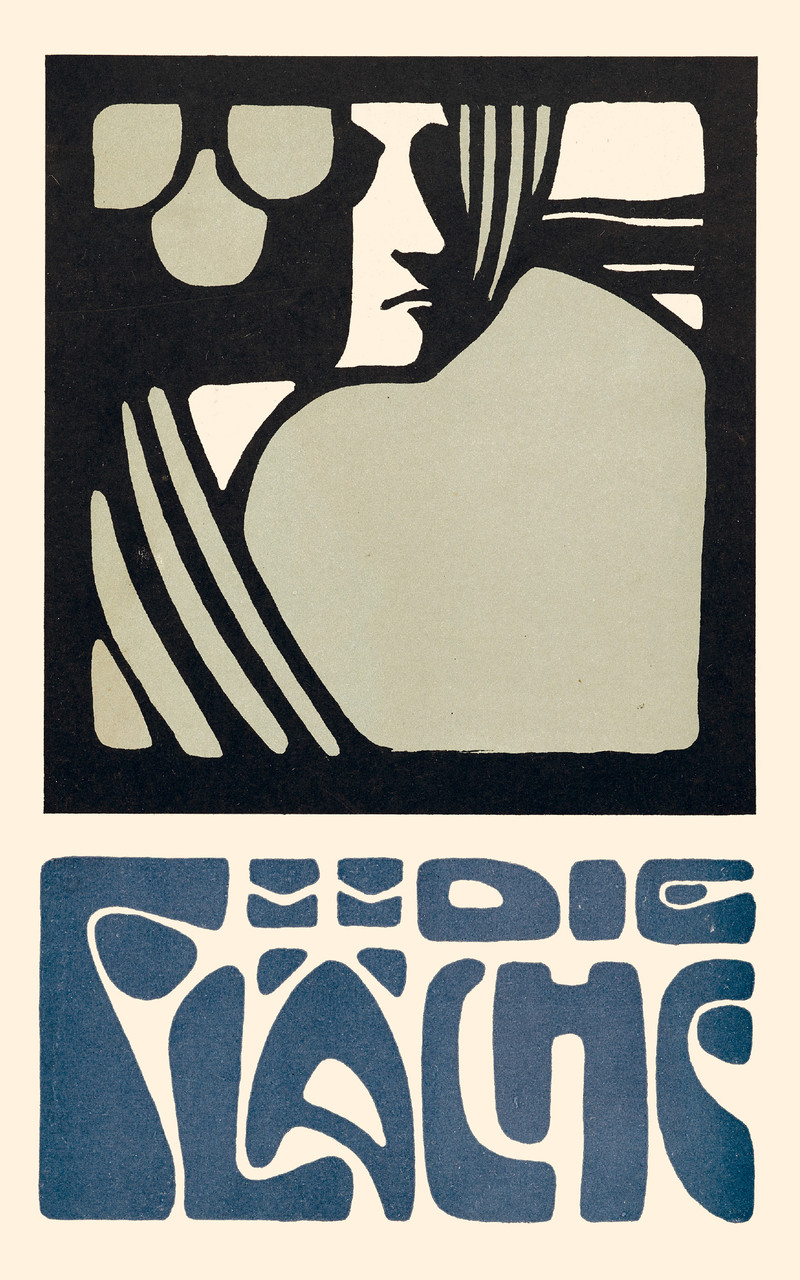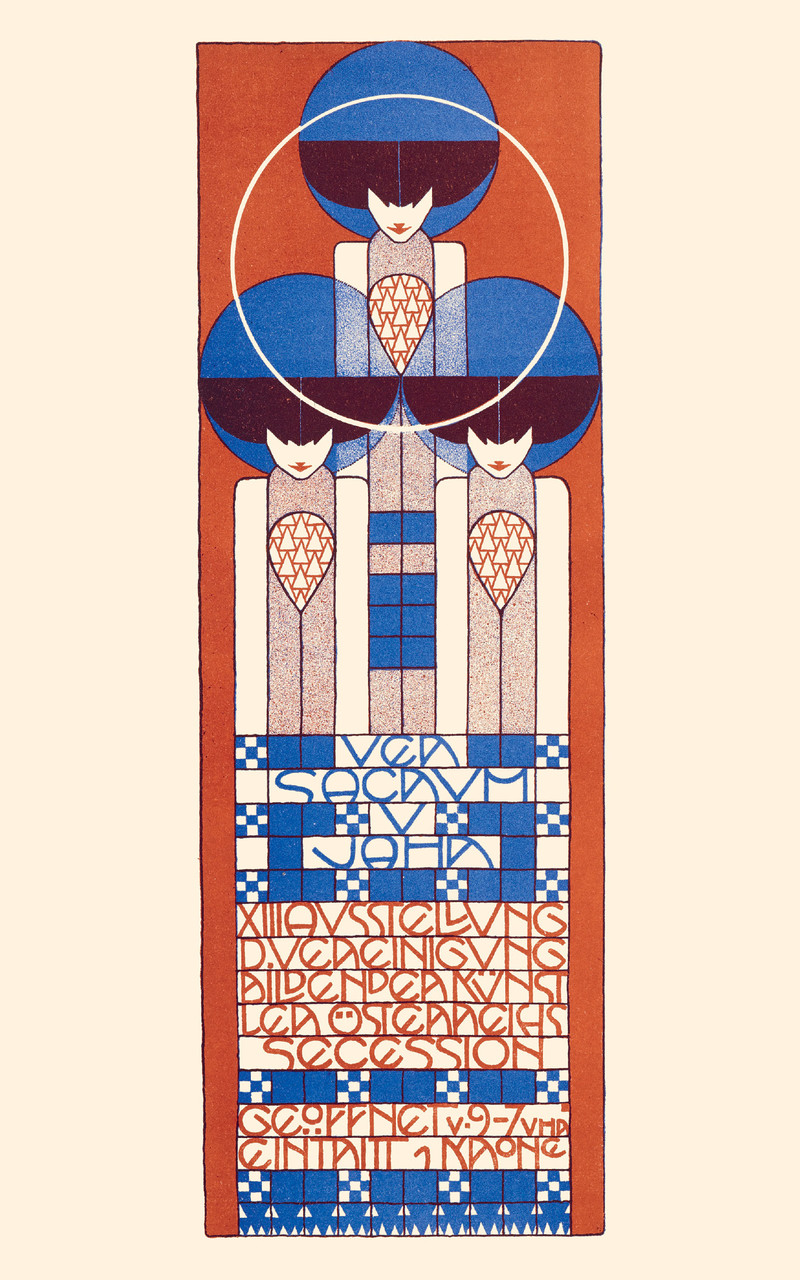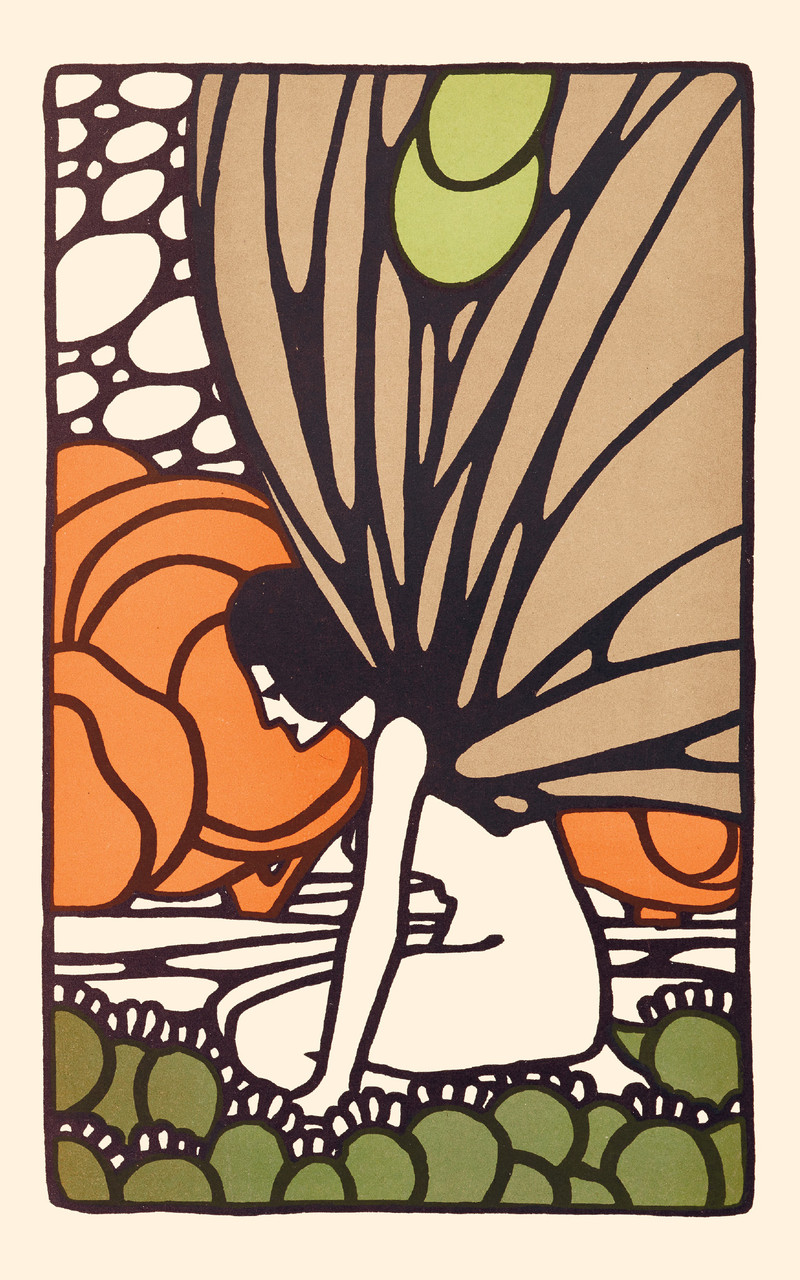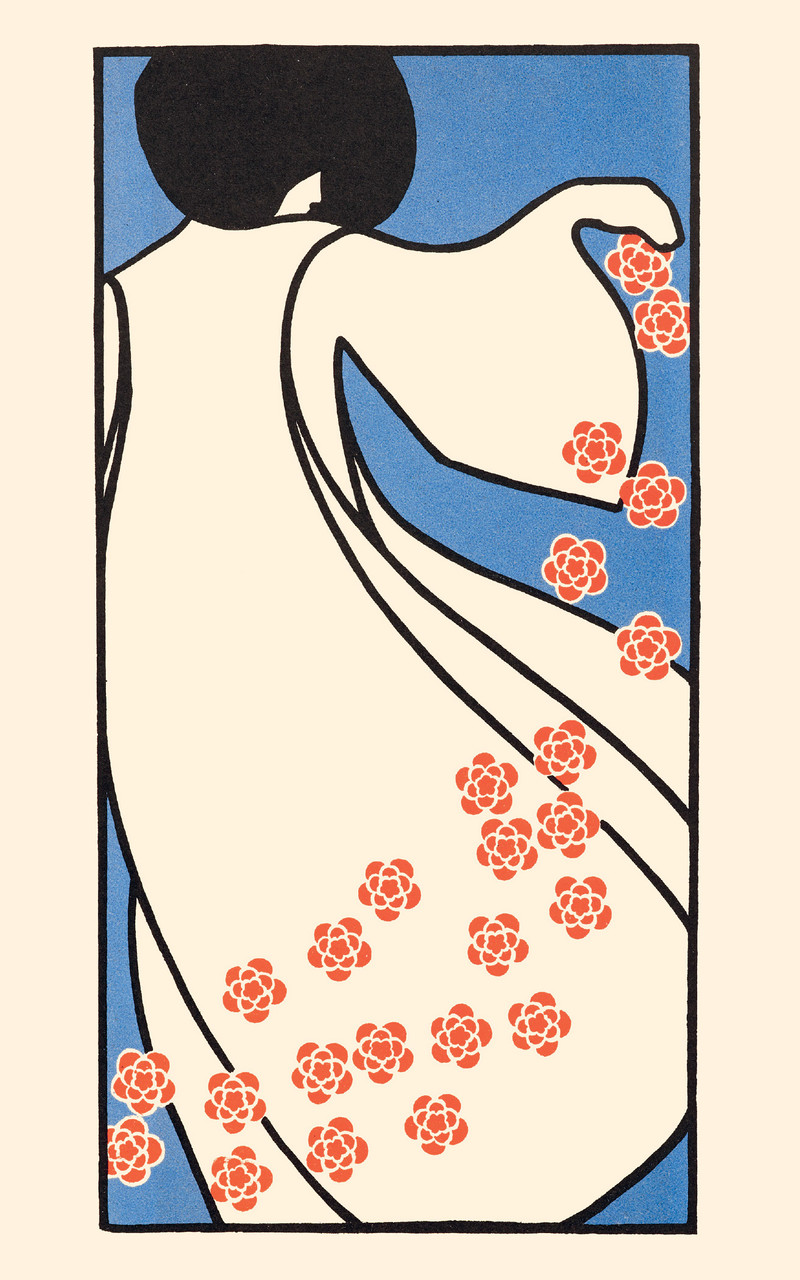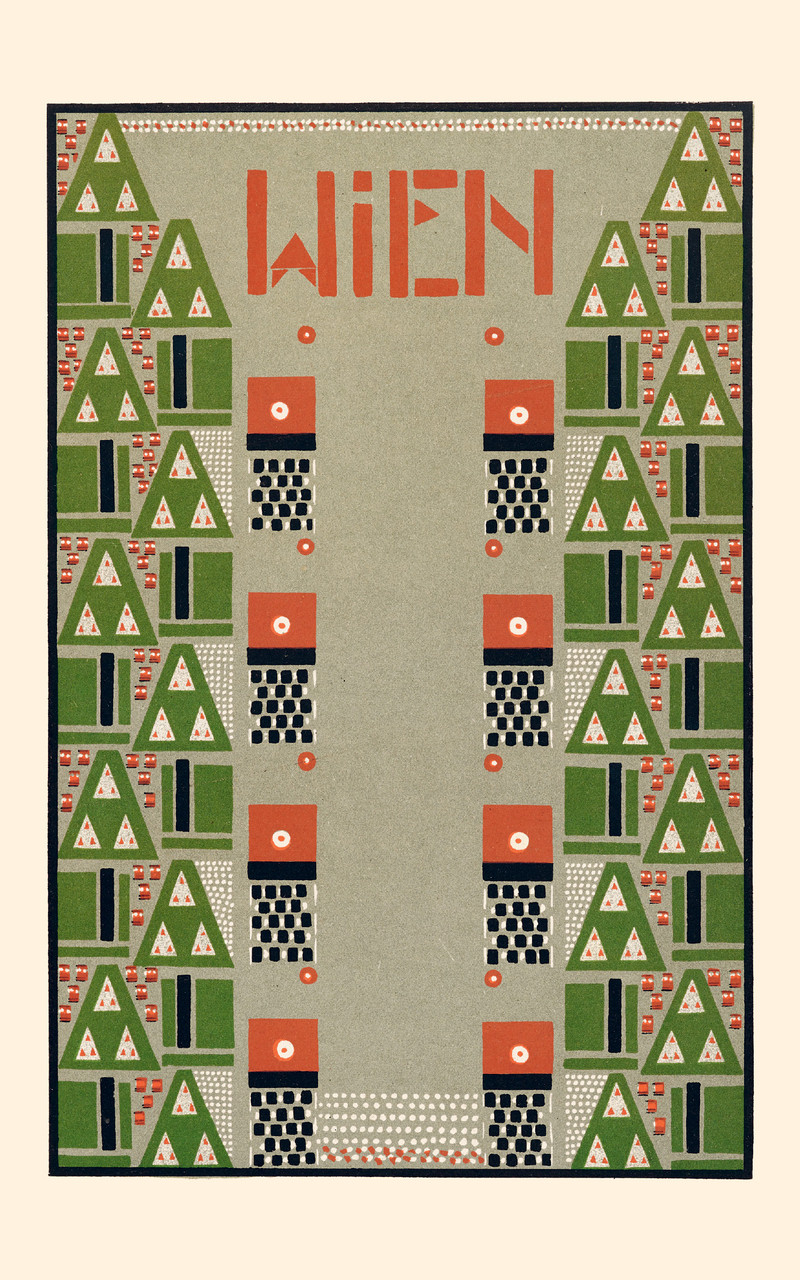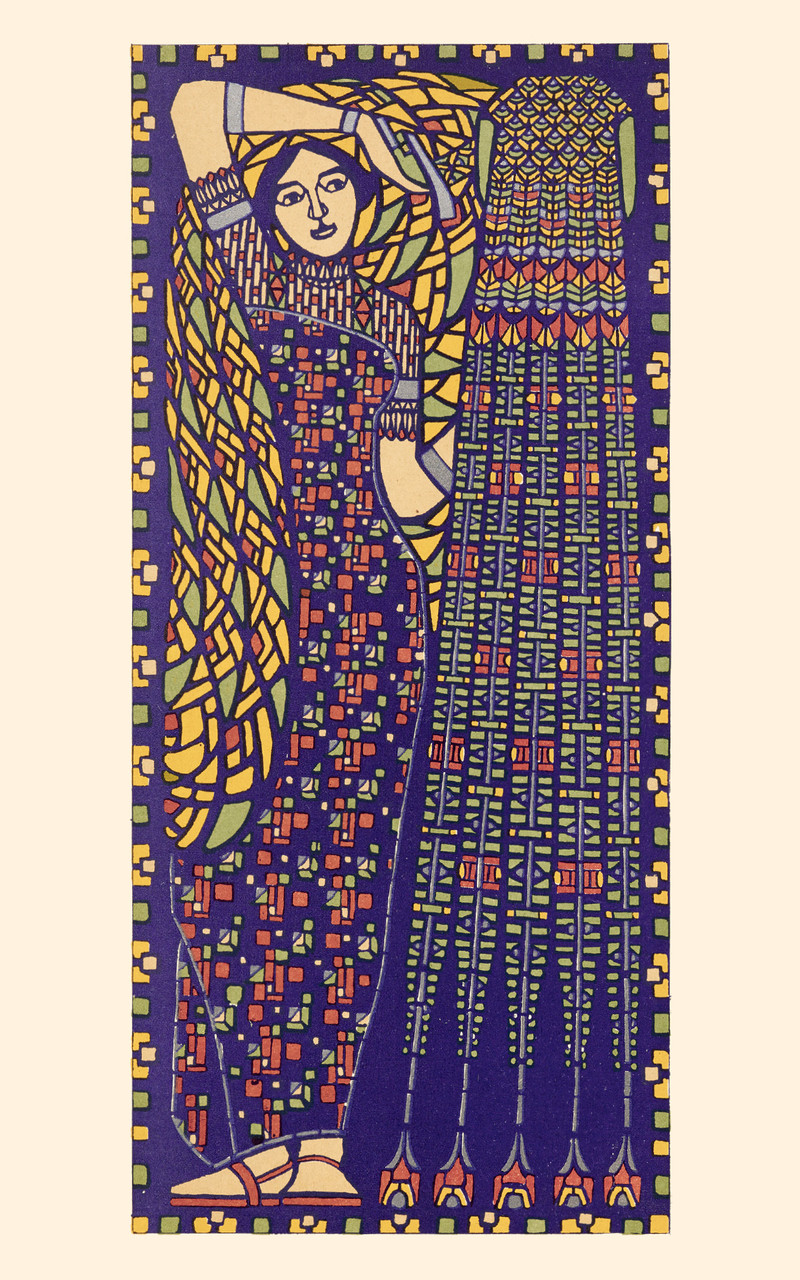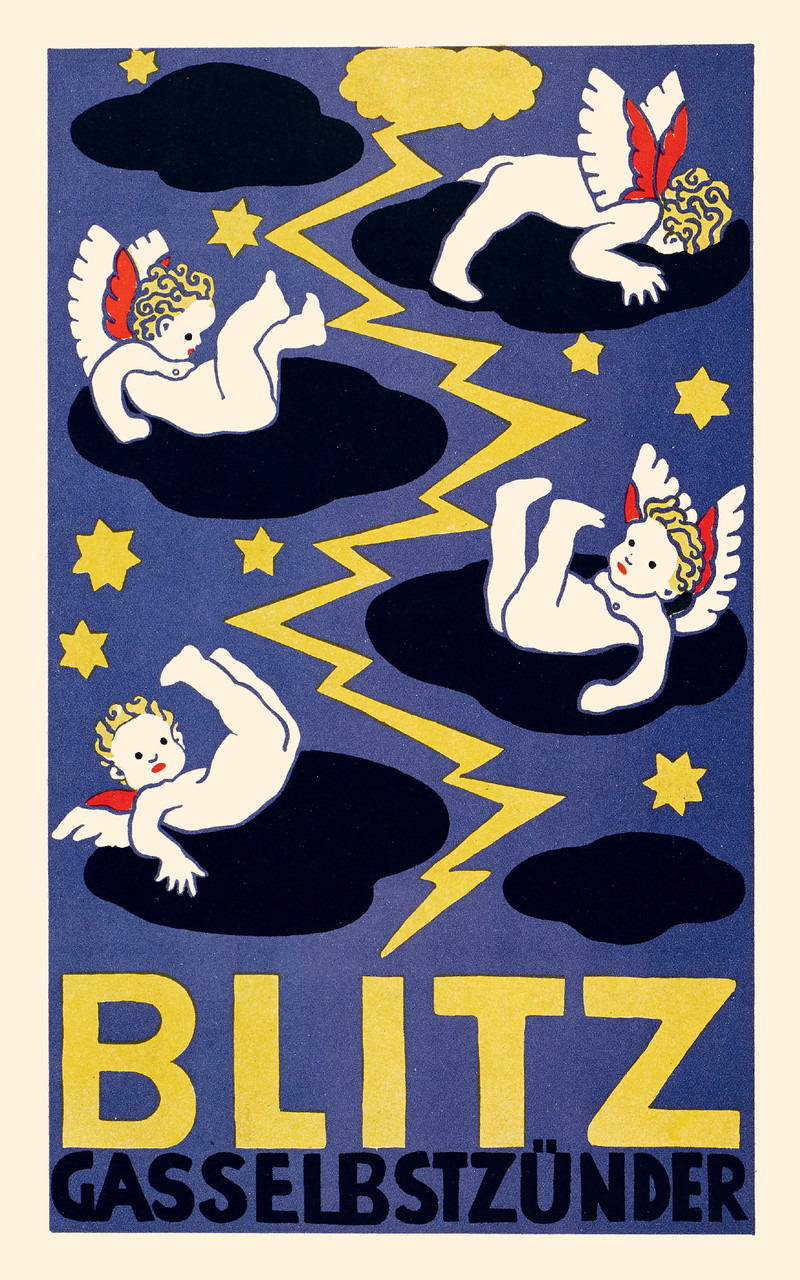
40 cards with 20 enchanting posters and graphic prints from the Vienna Secession
In the first decade of the twentieth century, Vienna’s leading modernists and their students developed a bold graphic style that heralded a new age. Debuting their prints and posters in a periodical they called Die Fläche (German for The Surface), graphic artists of the Secession such as Kolomon Moser and Alfred Roller directed design away from older art nouveau forms and toward bold experiments with flat colors, elementary shapes, and expressive lettering.
This set of 40 postcards features 20 favorites from Die Fläche, including famed placards for Vienna Secession art exhibitions, works by members of the Wiener Werkstätte arts and crafts collective, and prints from the 1908 Kunstschau, a landmark exhibition organized by Gustav Klimt. Humorous and ethereal designs mix with exquisitely abstract depictions of Vienna as a fashionable modern metropolis.
Pioneering women artists such as Hilde Exner, Emma Schlangenhausen, and Valerie Petter-Zeis stand out among the list of contributors, reflecting their important roles in shaping visual culture in the city. As in Die Fläche, artwork by Koloman Moser, Alfred Roller, and other founders of the Secession appear side-by-side with pieces by unsung luminaries such as Max Benirschke and Anton Kling.
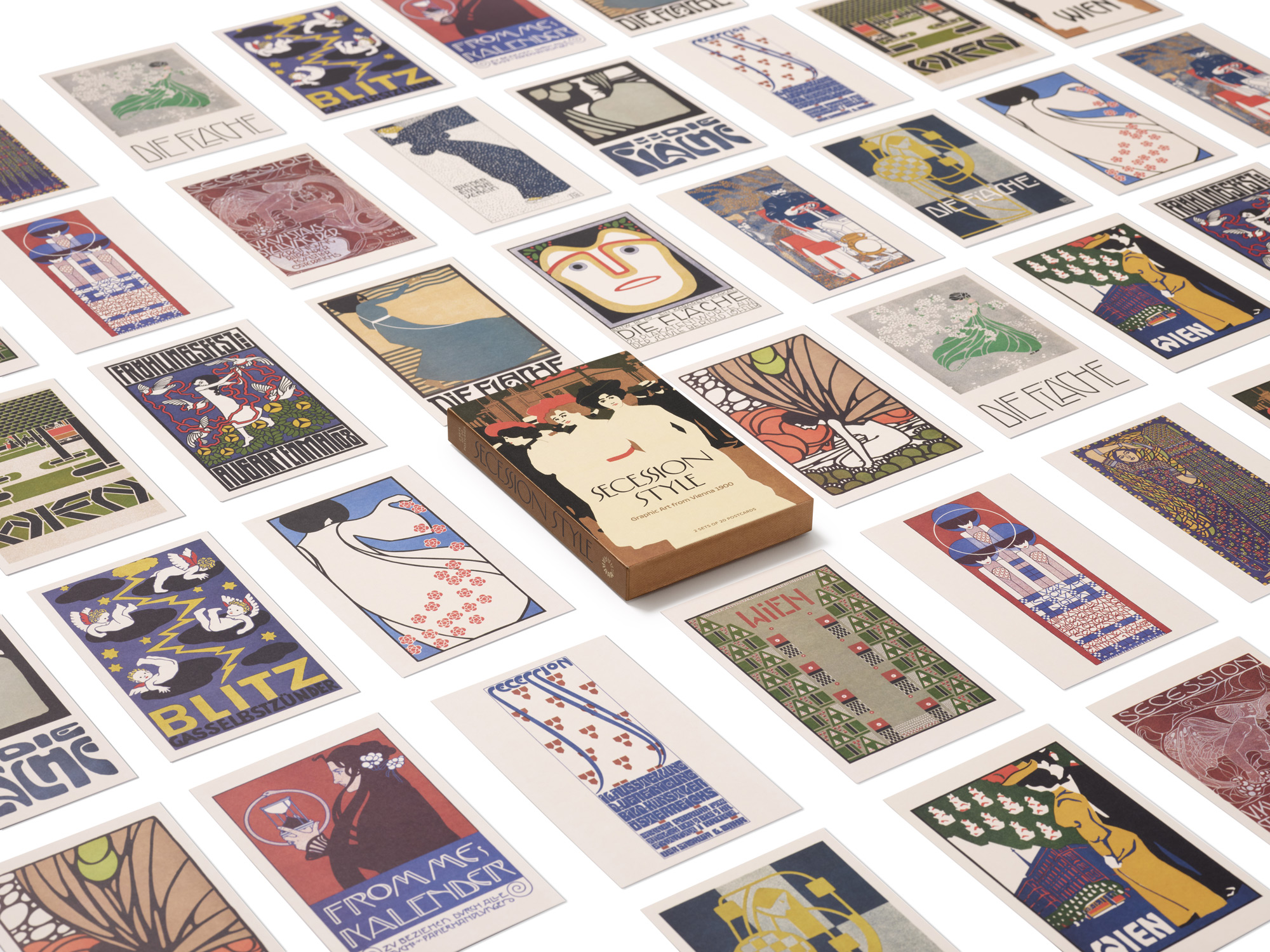
With faithful reproductions printed on matte cardstock and presented in a handsome box adorned with metallic ink, Secession Style offers a unique collection of mailable artwork from a celebrated modern art movement, making it an attractive gift for lovers of art and design.